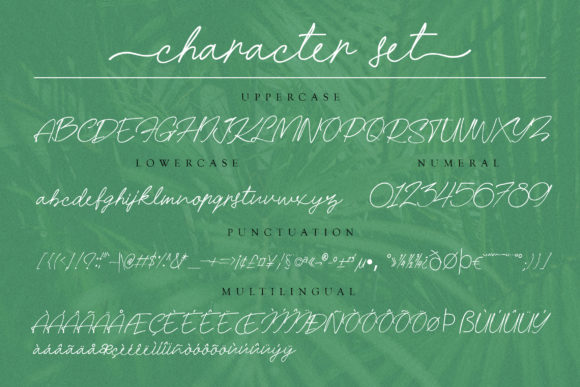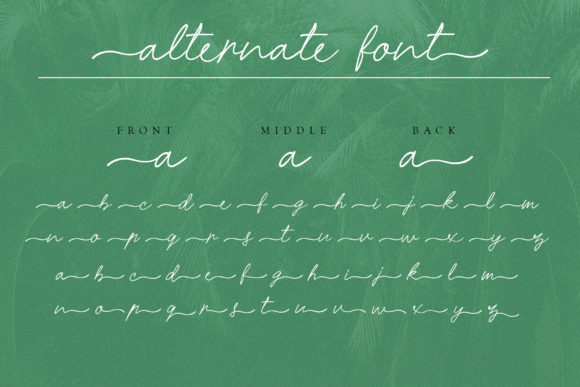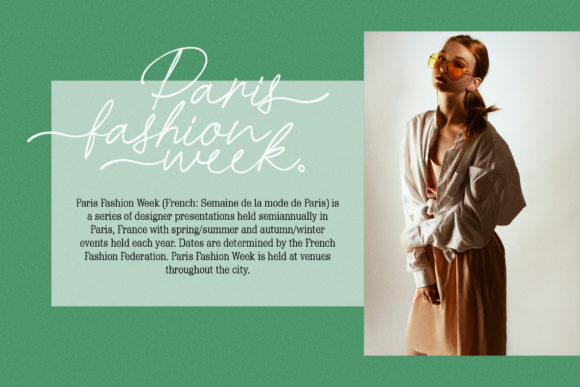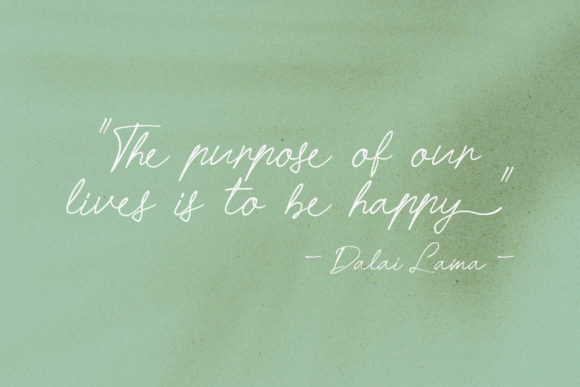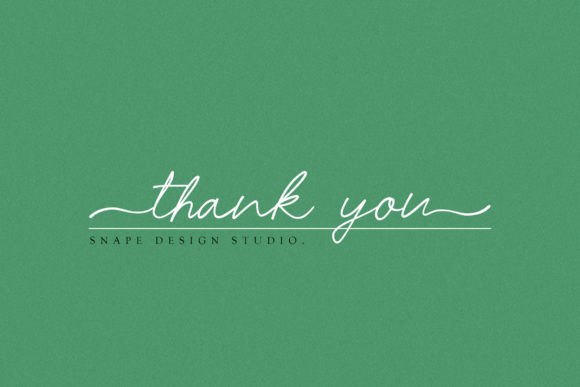
Hanamara Font: Elevate Your Designs with Elegance and Class
In the world of typography, fonts play a crucial role in conveying the tone and aesthetic of a design. For those seeking a lovely and delicate script font that exudes elegance and class, Hanamara Font is an excellent choice. Crafted with precision and care, Hanamara is a refreshing addition to the world of typography, perfect for designers and crafters looking to add a touch of sophistication to their work.
The Beauty of Hanamara Font
Hanamara Font is a stunning script font that boasts a unique and captivating charm. Its delicate strokes and elegant curves make it an ideal choice for a wide range of design applications, from wedding invitations and branding materials to packaging and digital media. The font’s refined and polished appearance ensures that it will elevate any design, adding a level of sophistication and refinement that is hard to match.
Key Features of Hanamara Font
- Delicate and Elegant: Hanamara Font features delicate strokes and elegant curves, making it perfect for designs that require a touch of sophistication.
- Unique and Refreshing: With its distinctive style, Hanamara Font adds a refreshing touch to any design, setting it apart from more traditional fonts.
- Highly Versatile: Hanamara Font is suitable for a wide range of design applications, from print materials to digital media.
- Easy to Read: Despite its delicate nature, Hanamara Font is highly legible, making it perfect for body text and headlines.
Uses of Hanamara Font
Hanamara Font’s versatility and elegance make it an excellent choice for a variety of design projects. Some of the most popular uses of Hanamara Font include:
- Wedding Invitations: Add a touch of romance and elegance to your wedding invitations with Hanamara Font.
- Branding Materials: Use Hanamara Font to create stunning logos, business cards, and letterheads that exude sophistication and class.
- Packaging: Elevate your product packaging with Hanamara Font, adding a level of refinement and elegance that will set your products apart.
- Digital Media: Hanamara Font is perfect for digital media, including social media graphics, blog posts, and website headers.
Why Choose Hanamara Font?
With so many fonts available, why choose Hanamara Font? Here are just a few reasons why Hanamara Font stands out from the crowd:
- Unique Style: Hanamara Font boasts a distinctive style that will set your designs apart from the rest.
- Elegant and Refined: Hanamara Font exudes elegance and class, making it perfect for designs that require a touch of sophistication.
- Highly Versatile: Hanamara Font is suitable for a wide range of design applications, making it a great addition to any designer’s toolkit.
In conclusion, Hanamara Font is a stunning script font that is sure to elevate your designs with its elegance and class. With its delicate strokes, elegant curves, and highly versatile nature, Hanamara Font is perfect for designers and crafters looking to add a touch of sophistication to their work. Whether you’re creating wedding invitations, branding materials, packaging, or digital media, Hanamara Font is an excellent choice. So why wait? Discover the beauty of Hanamara Font today and take your designs to the next level!